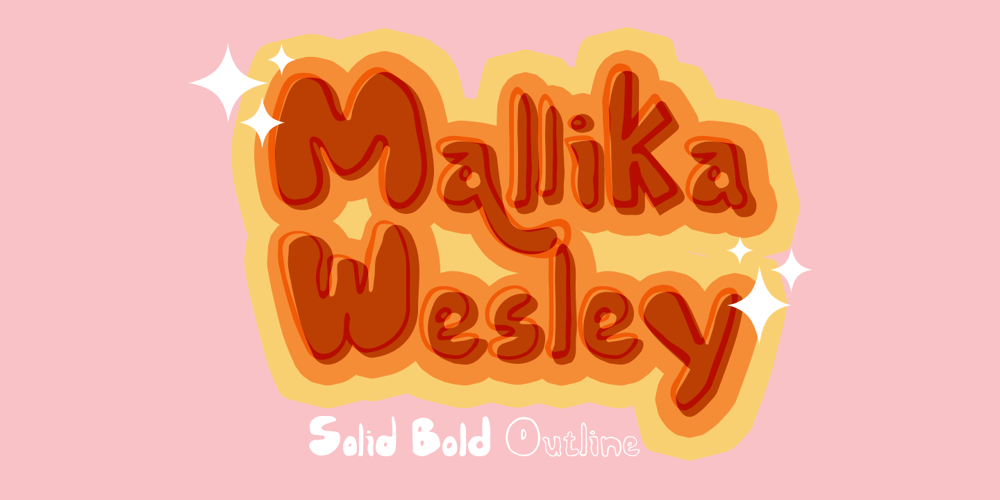
Mallika Wesley
Mallika Wesley font
Mallika Wesley Font Family was designed by madededuk and published by madeDeduk. Mallika Wesley contains 3 styles and family package options. Introducing Mallika Wesley is a playful handwritten font. Super easy to use, you can access these via using OpenType capable software ( like Photoshop, Illustrator, Indesign). You can also access them if you use a Mac and use Fontbook and Textedit. And will be perfect for book, title branding, product packaging, invitation, quotes, label, poster, logo etc. Feature Uppercase & Lowercase Number & Symbol International Glyphs Multilingual support Ligature Alternative Feel free to drop us a message any time and follow my shop for upcoming updatesHope you enjoy it.